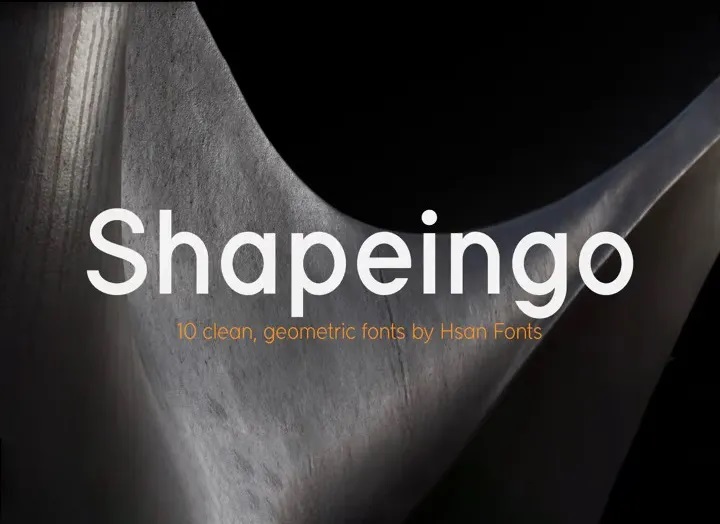
Shapeingo Font
Shapeingo is a modern sans serif font family that blends old and new generation sans serif fonts in the same pot. It’s designed and shared by Hsan Fonts. Shapeingo is perfect for branding, logos, headlines or captions.
The font could also work as a stylish text overlay on any background image you like, minimalist and warm while still being versatile enough to use anywhere!
Shapeingo Sans Serif Font